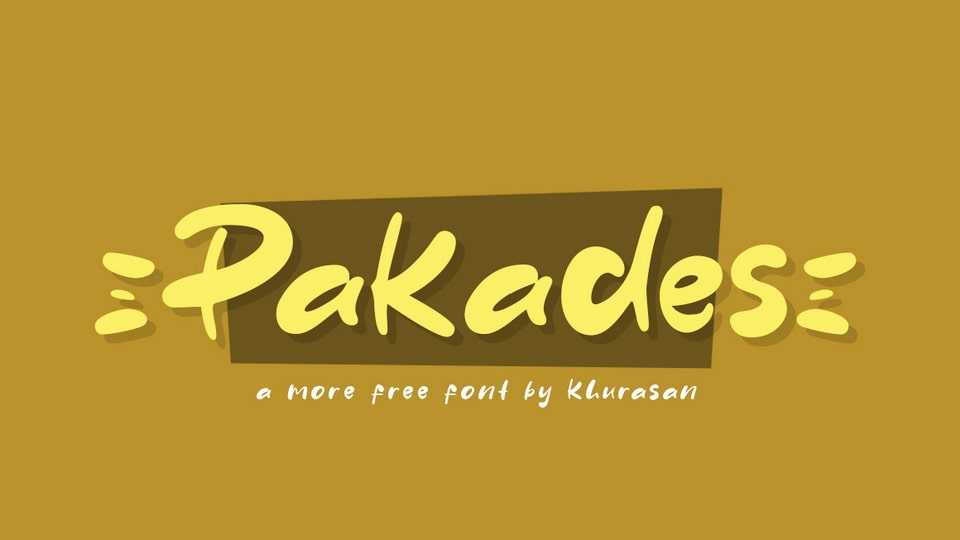
Download Pakades font, a modern and fancy handwritten typeface. Pakades is perfect for posters, logos, magazines, book covers, banners, and many more lovely designs.